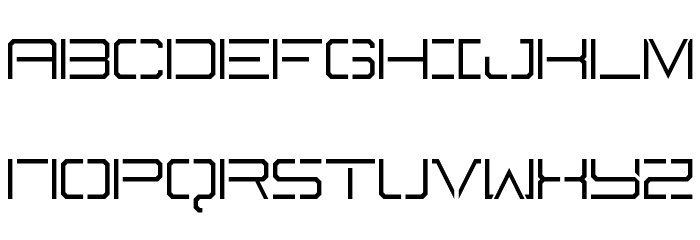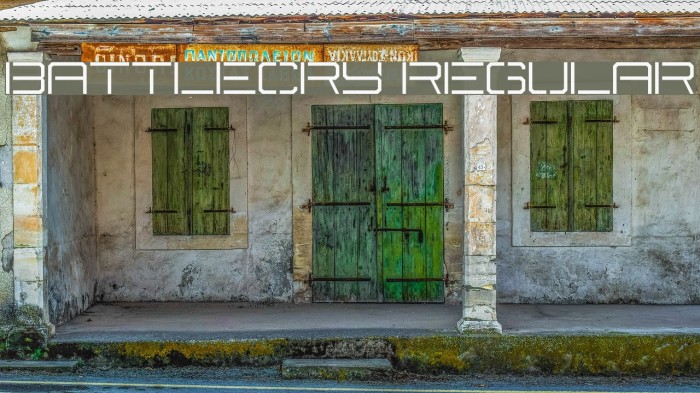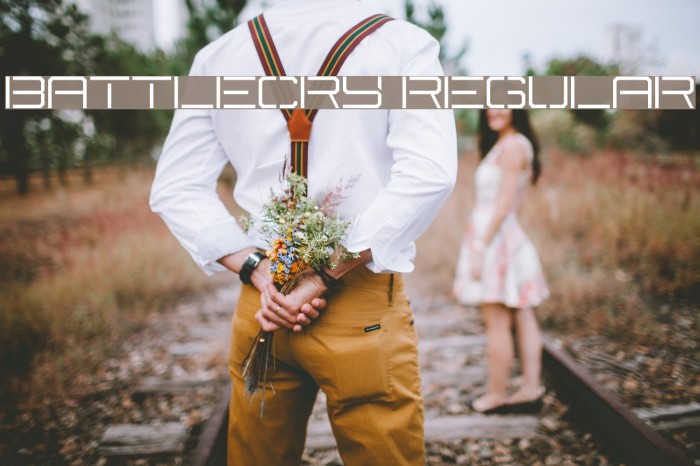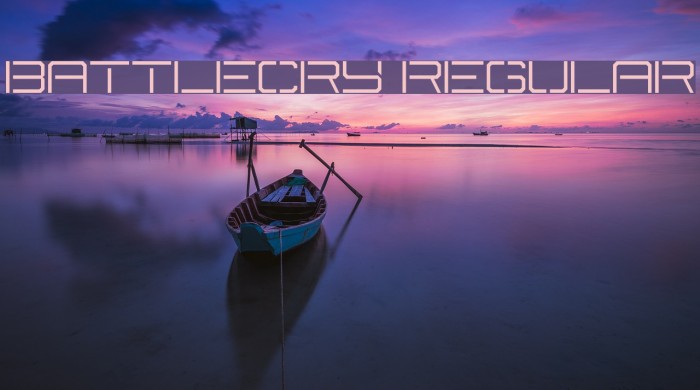
Battlecry Regular Font
This font features a futuristic and geometric design with a strong emphasis on angular lines and sharp edges. The characters are constructed with a consistent stroke width, giving it a uniform appearance. The uppercase letters are particularly striking, with a mechanical and digital feel that suggests a modern, tech-inspired aesthetic. The font's clean lines and structured form make it highly legible, even at smaller sizes. Its unique style is both bold and minimalistic, making it suitable for a variety of creative applications.
A futuristic, geometric font with sharp, angular lines and a tech-inspired aesthetic.